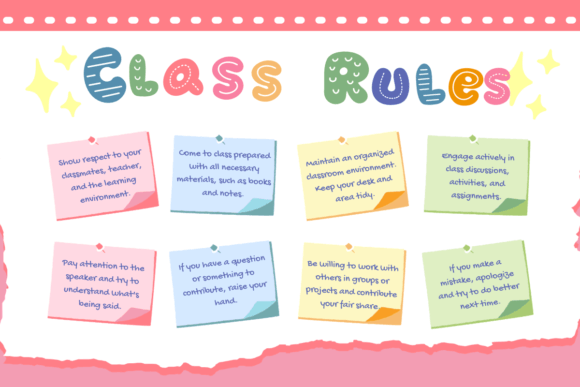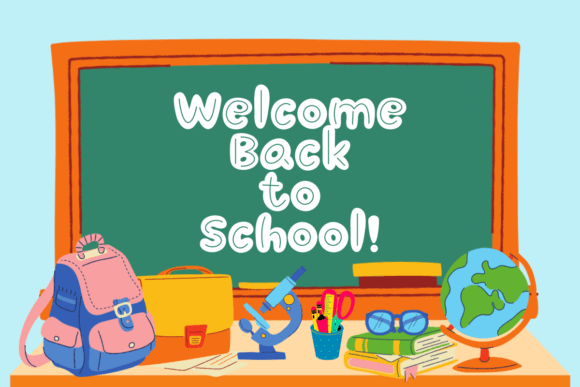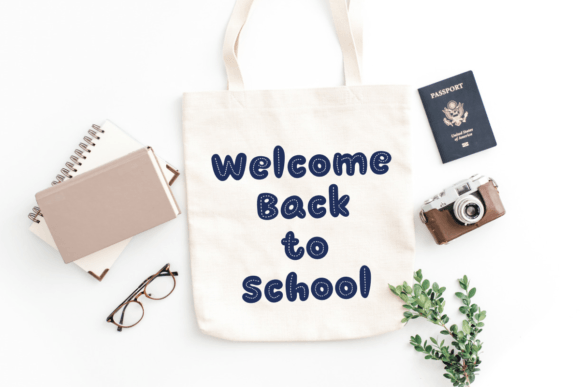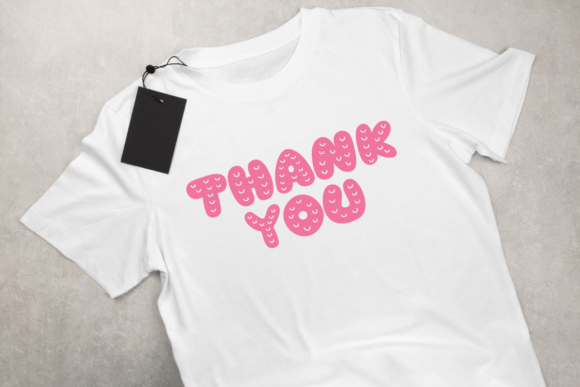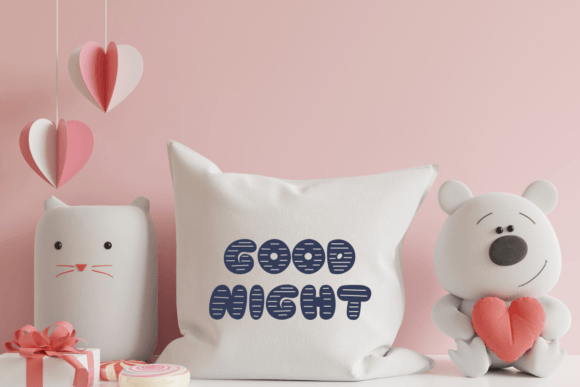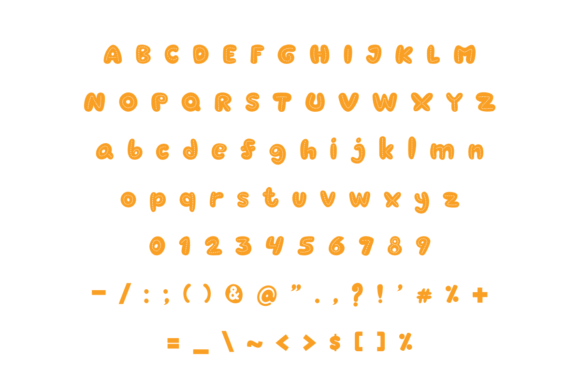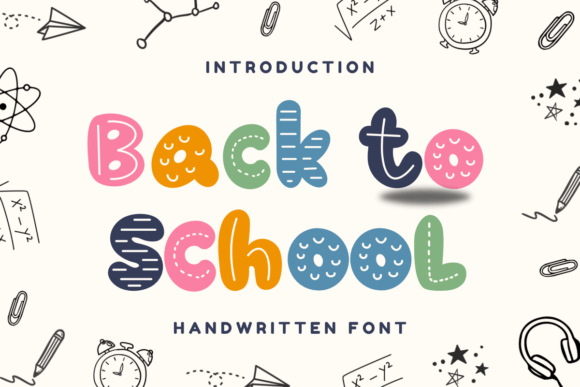
Back to School Font: Add a Bouncy Touch to Your Designs!
Are you a designer, teacher, or parent looking for a fun and engaging way to create back to school materials? Look no further than the “Back to School” font! This delightful font is designed to bring a sense of excitement and energy to your posters, cards, and other designs. Its bouncy and friendly letters are perfect for making a lasting impression on students, parents, and educators alike.
What Makes the Back to School Font So Special?
The “Back to School” font is like a breath of fresh air, infusing your designs with a lively and cheerful vibe. Its letters are meticulously crafted to look like they’re dancing on the page, making it an ideal choice for creating engaging and interactive materials. Whether you’re designing posters, flyers, or social media graphics, this font is sure to capture the attention of your audience and leave a lasting impression.
Key Features of the Back to School Font
- Bouncy and Friendly Letters: The font’s letters are designed to be playful and fun, giving your designs a lively and energetic feel.
- Perfect for Posters and Cards: The font is ideal for creating eye-catching posters, cards, and other materials that require a bold and cheerful look.
- Easy to Read: Despite its playful design, the font is easy to read, making it suitable for use in a variety of contexts, from headings to body text.
- Versatile: The font can be used in a range of design applications, from digital graphics to print materials.
How to Use the Back to School Font in Your Designs
Using the “Back to School” font in your designs is easy! Here are a few tips to get you started:
- Pair it with Other Fonts: Combine the “Back to School” font with other fonts to create a unique and visually appealing design.
- Use it for Headings: The font is perfect for use in headings, titles, and subheadings, where its bold and playful design can really shine.
- Add Color and Graphics: Take your design to the next level by adding bright colors and engaging graphics to match the font’s lively vibe.
Ideas for Using the Back to School Font
The “Back to School” font is incredibly versatile, and can be used in a wide range of design applications. Here are a few ideas to get you started:
- Back to School Posters: Create eye-catching posters to welcome students back to school, featuring fun and colorful graphics and text.
- School Planners and Organizers: Use the font to create engaging and interactive school planners and organizers that students will love.
- Teacher Resources: Design teacher resources, such as worksheets, activity sheets, and certificates, using the “Back to School” font.
- Parent-Teacher Communication: Use the font to create engaging and informative newsletters, flyers, and other materials for parents.
The “Back to School” font is a fun and engaging way to add a bouncy touch to your designs. Its playful and friendly letters make it perfect for creating posters, cards, and other materials that require a lively and cheerful vibe. Whether you’re a designer, teacher, or parent, this font is sure to become a go-to choice for all your back to school design needs.